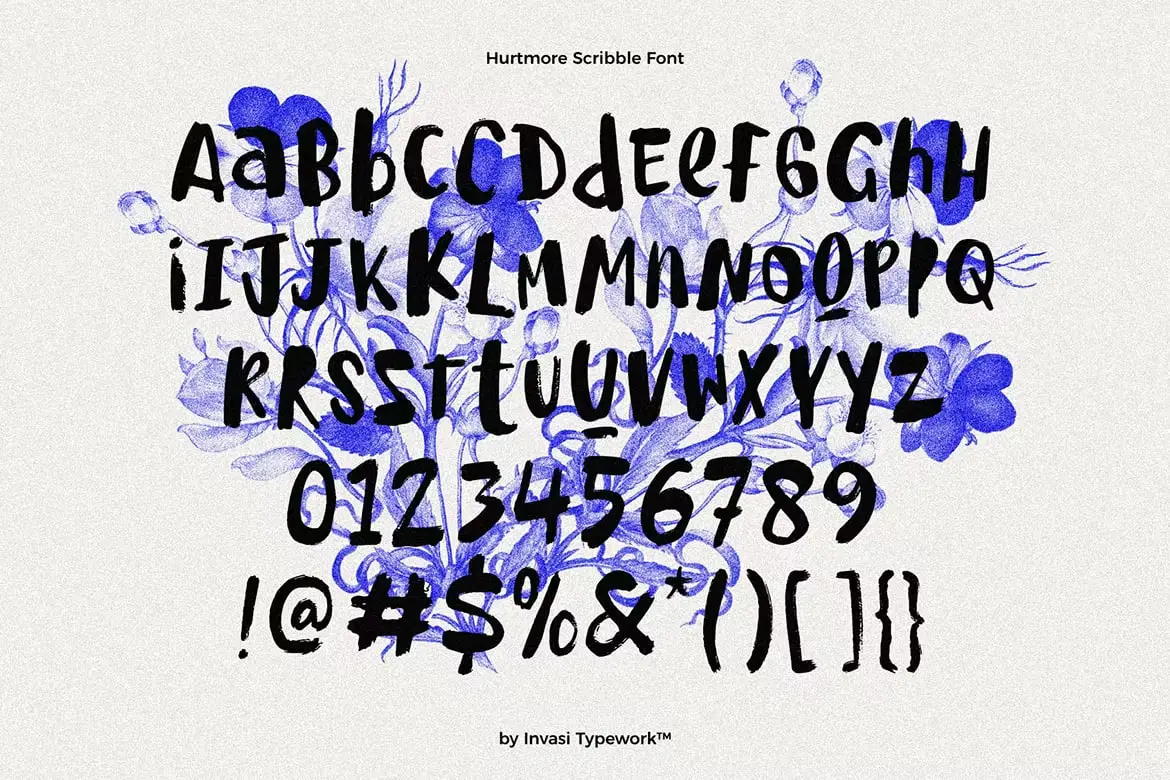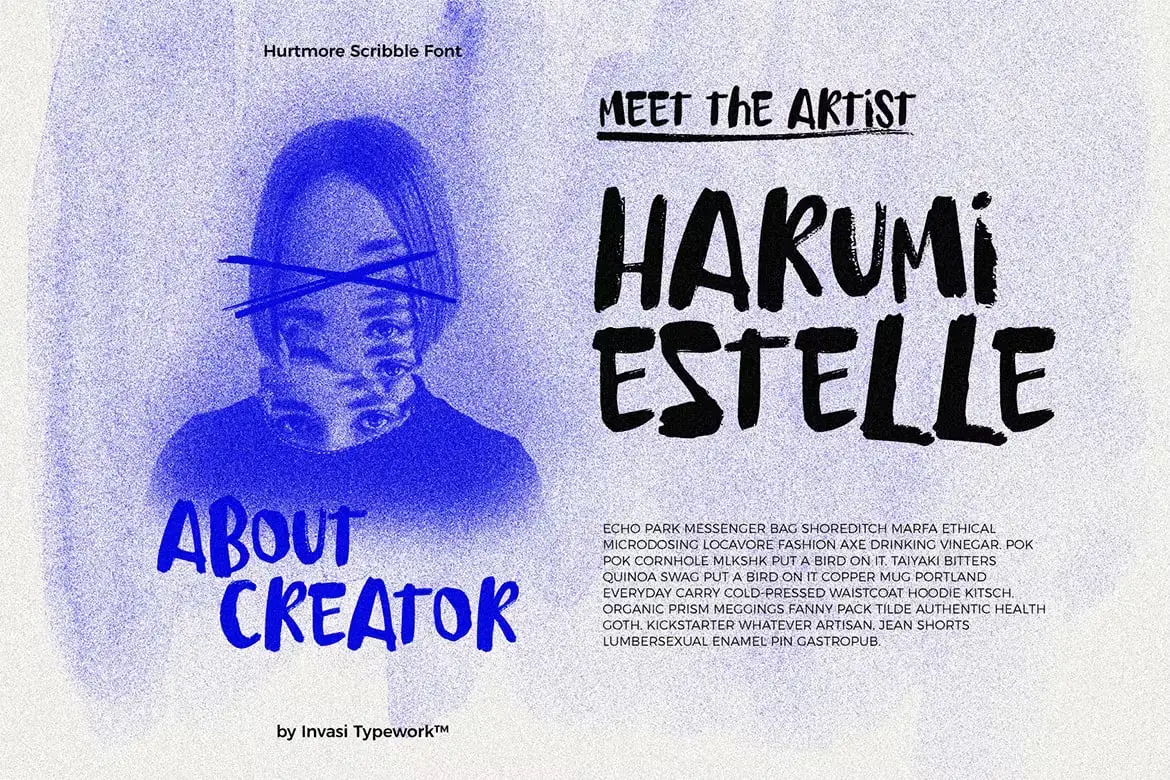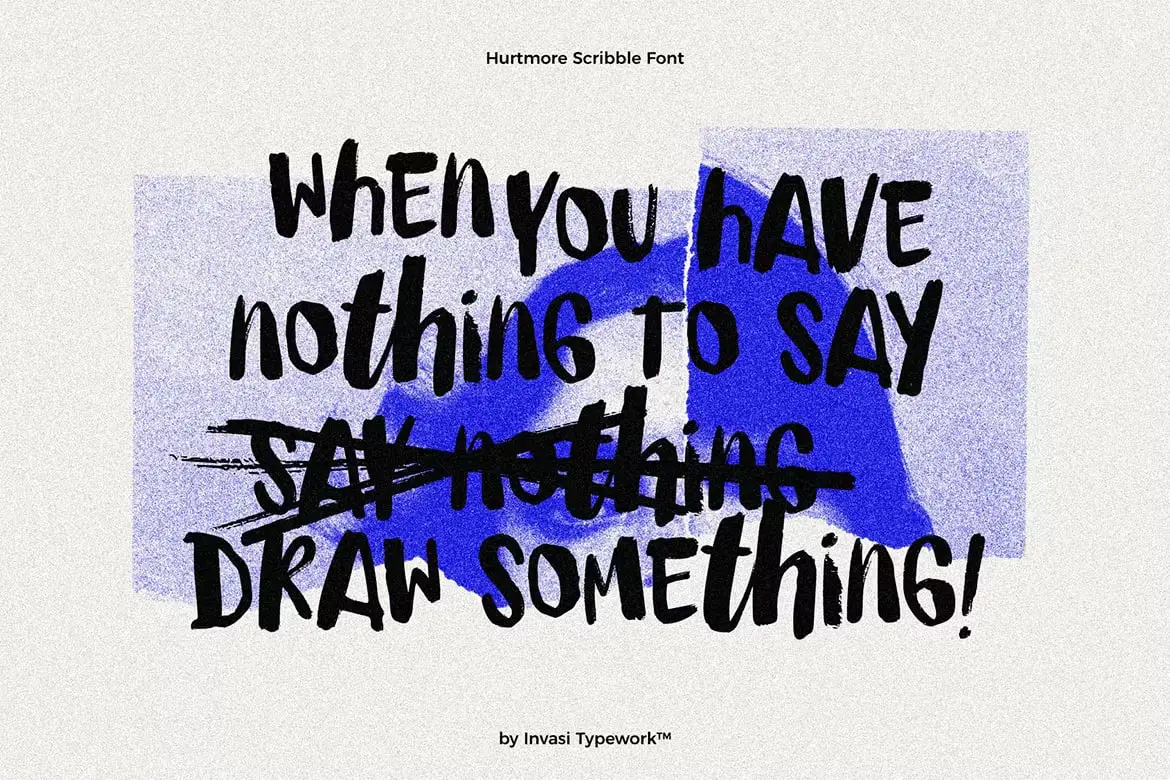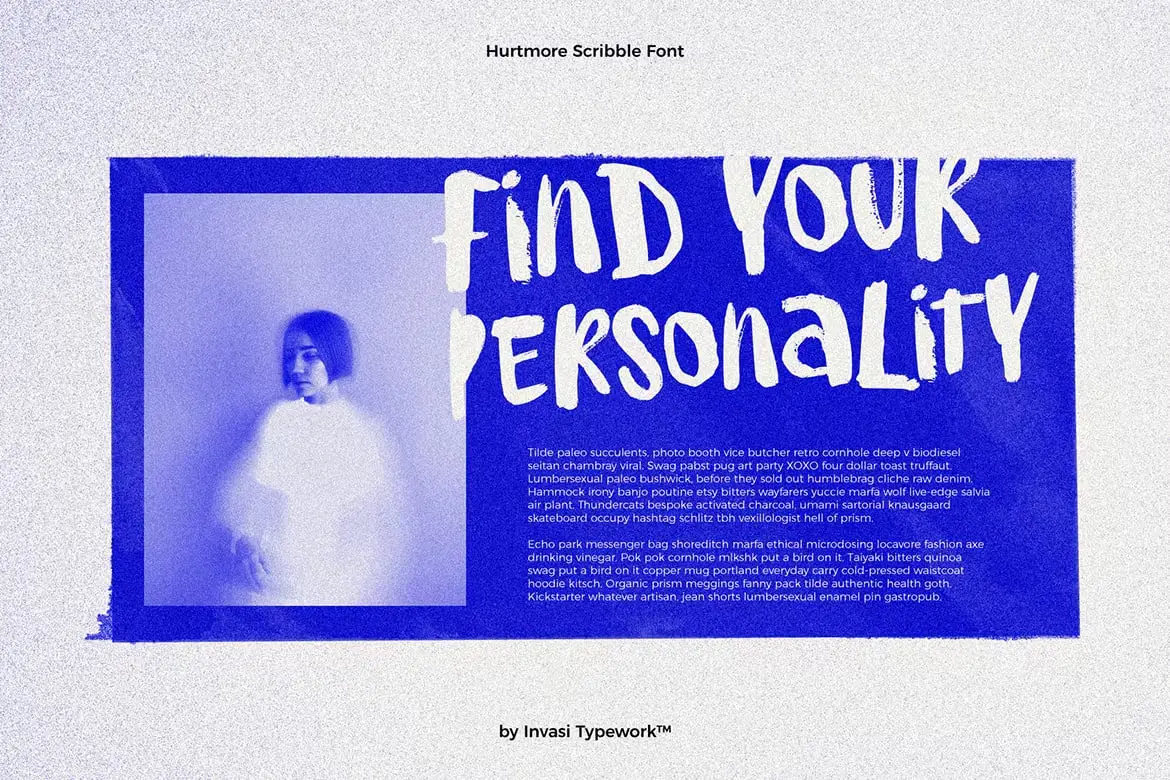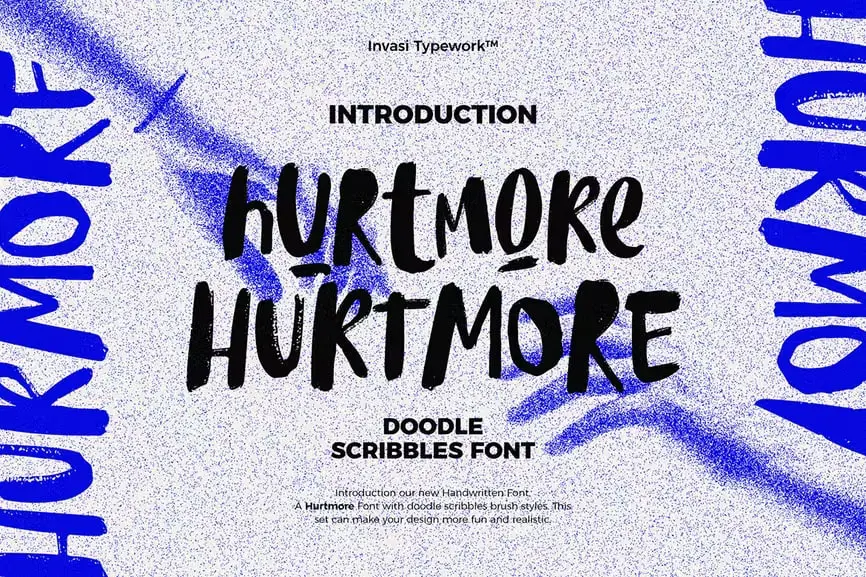
Hurtmore-Scribbles Font
The Hurtmore-Scribbles Font is a unique and playful typeface that adds a handwritten touch to your projects. Ideal for creative branding, invitations, and casual designs, this font captures the essence of spontaneity and artistic flair.
• Handwritten style with a whimsical feel
• Includes uppercase and lowercase letters
• Easy to read and versatile for various applications
• Weight: Regular
• Perfect for branding, logos, and web design
• Great for print materials like flyers and posters
• Use in UI designs for a friendly and approachable look